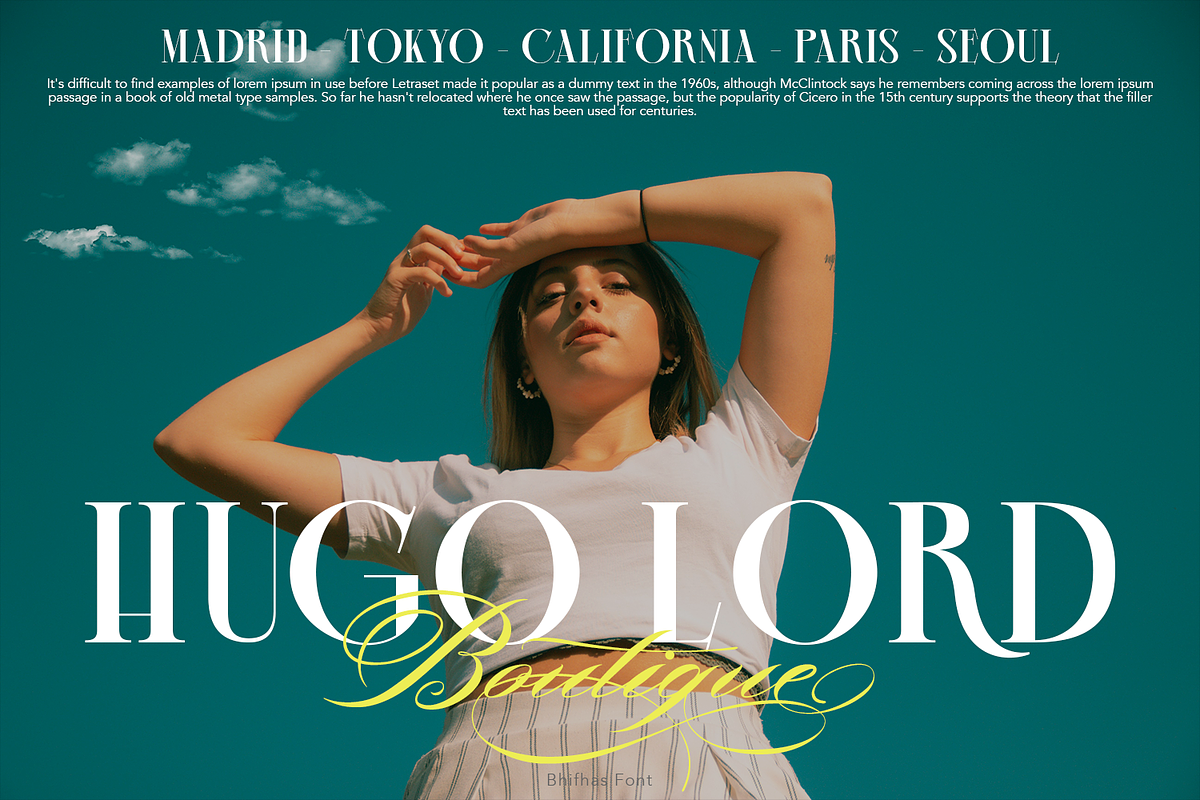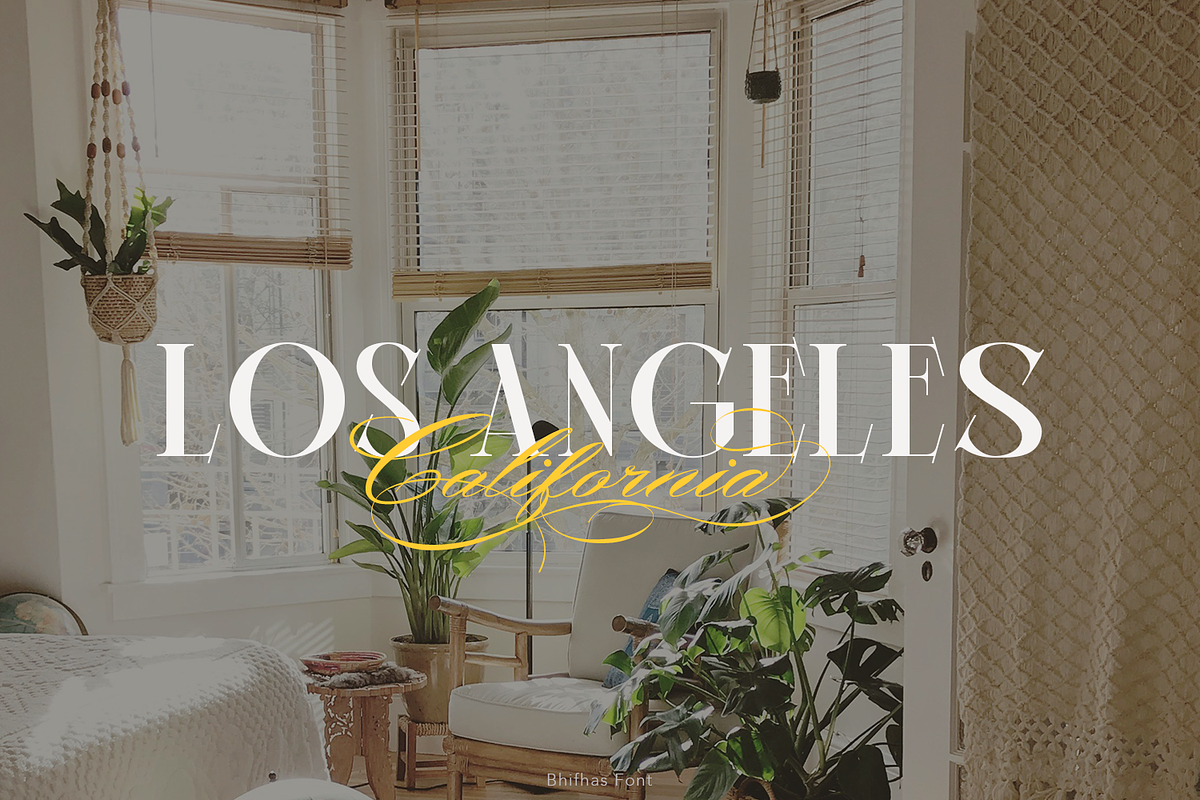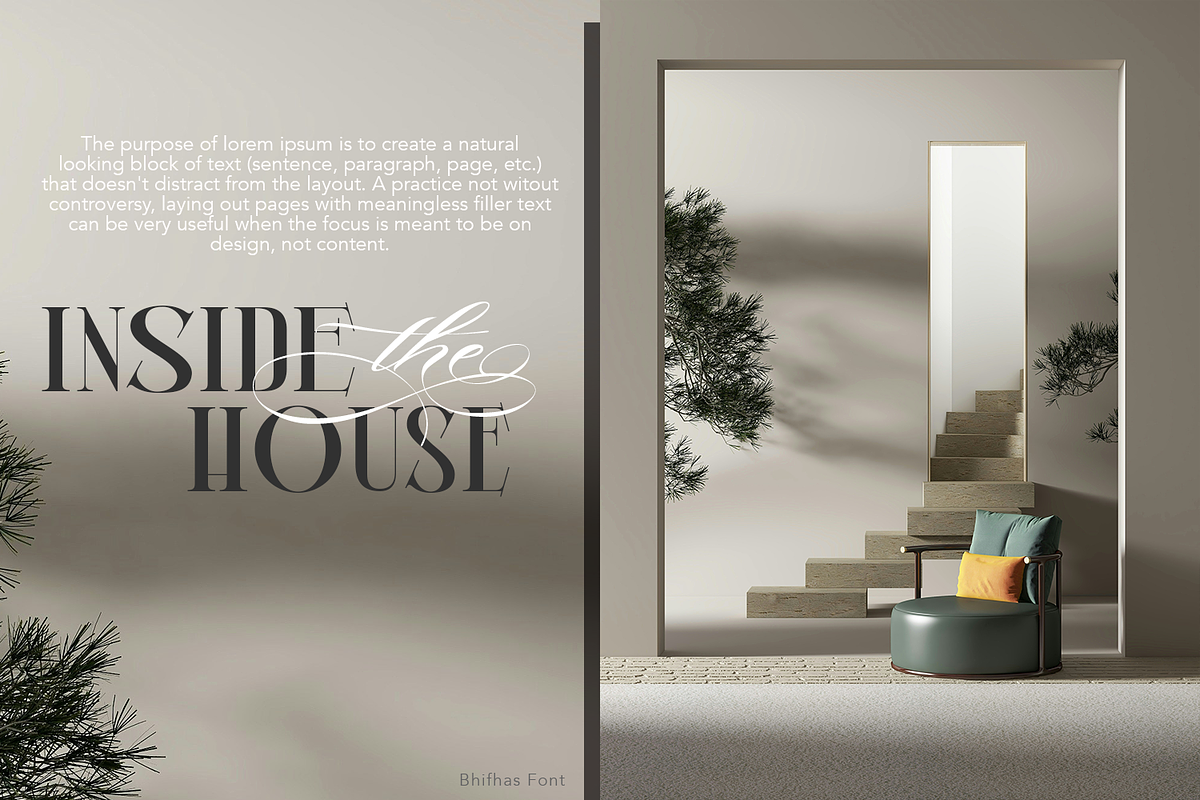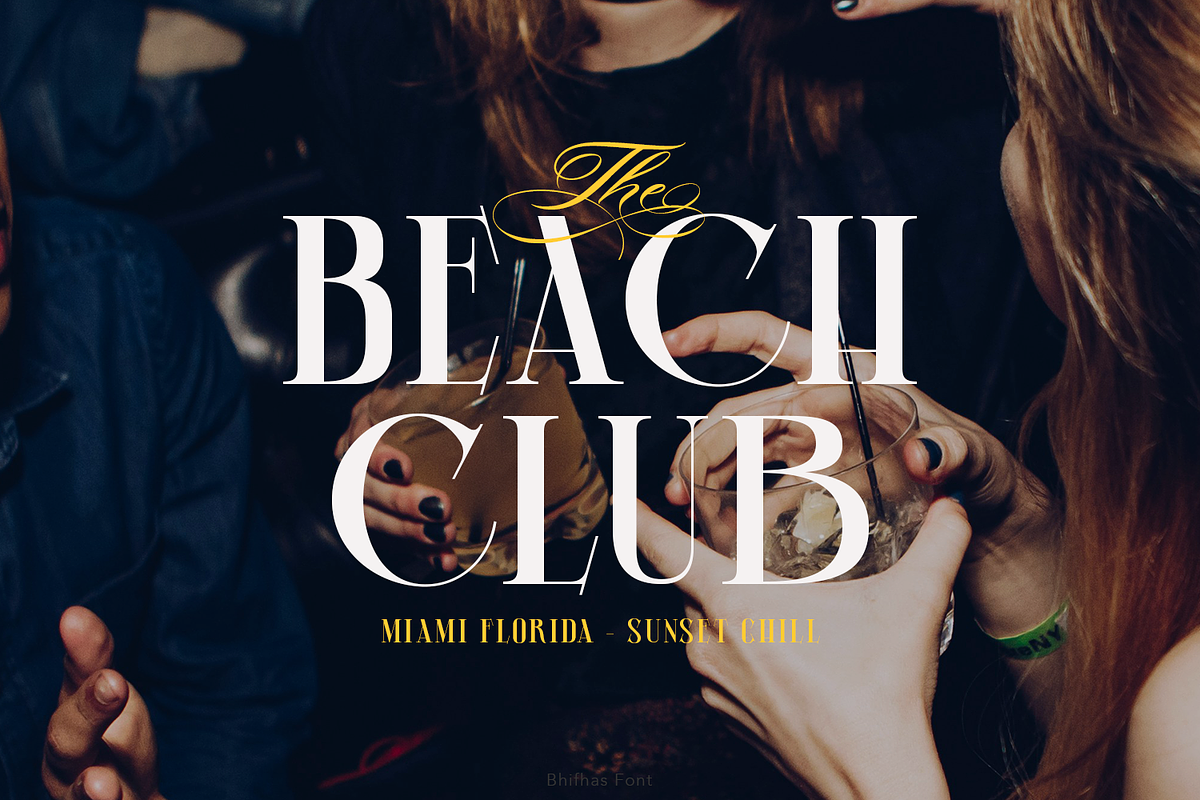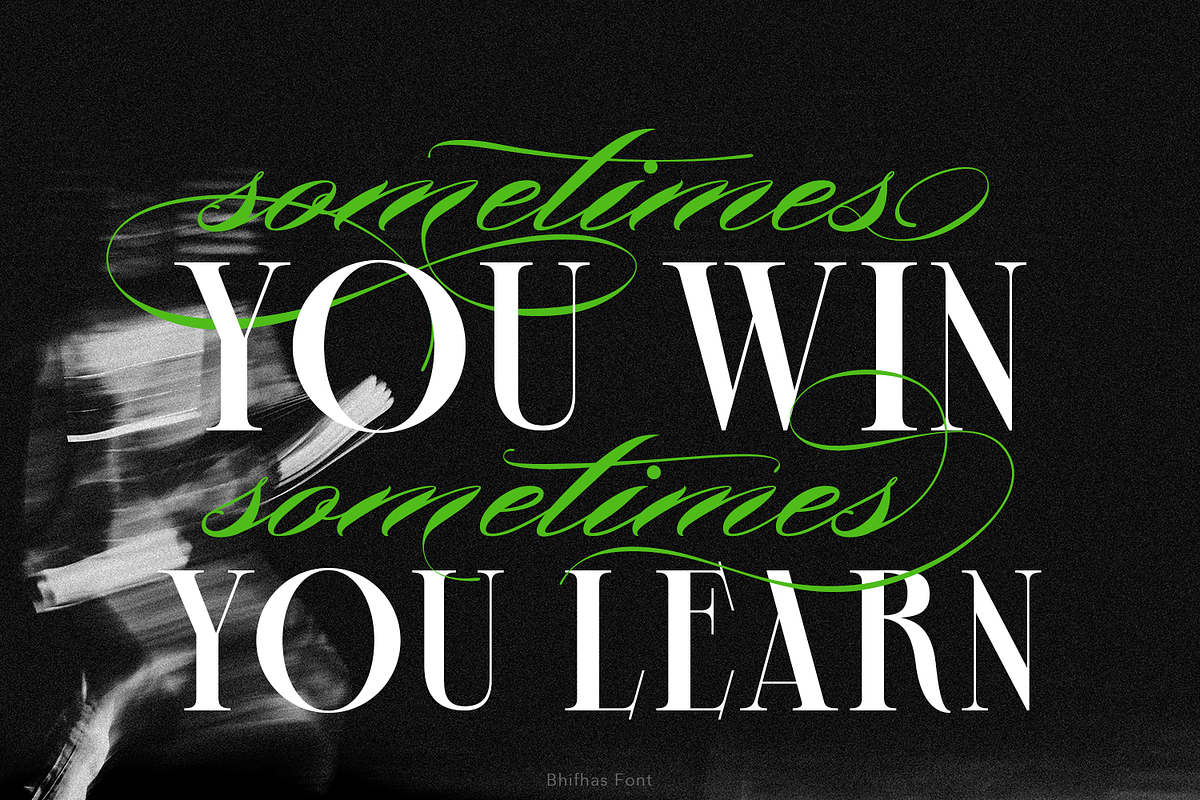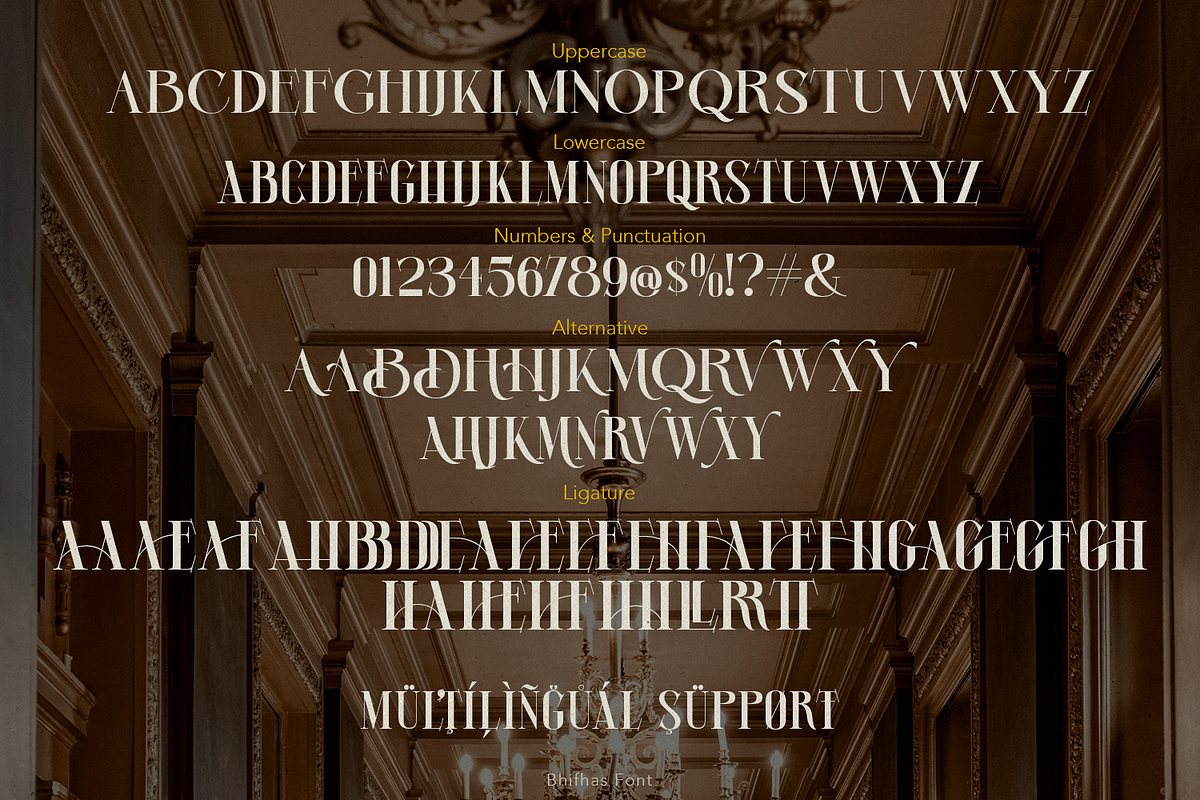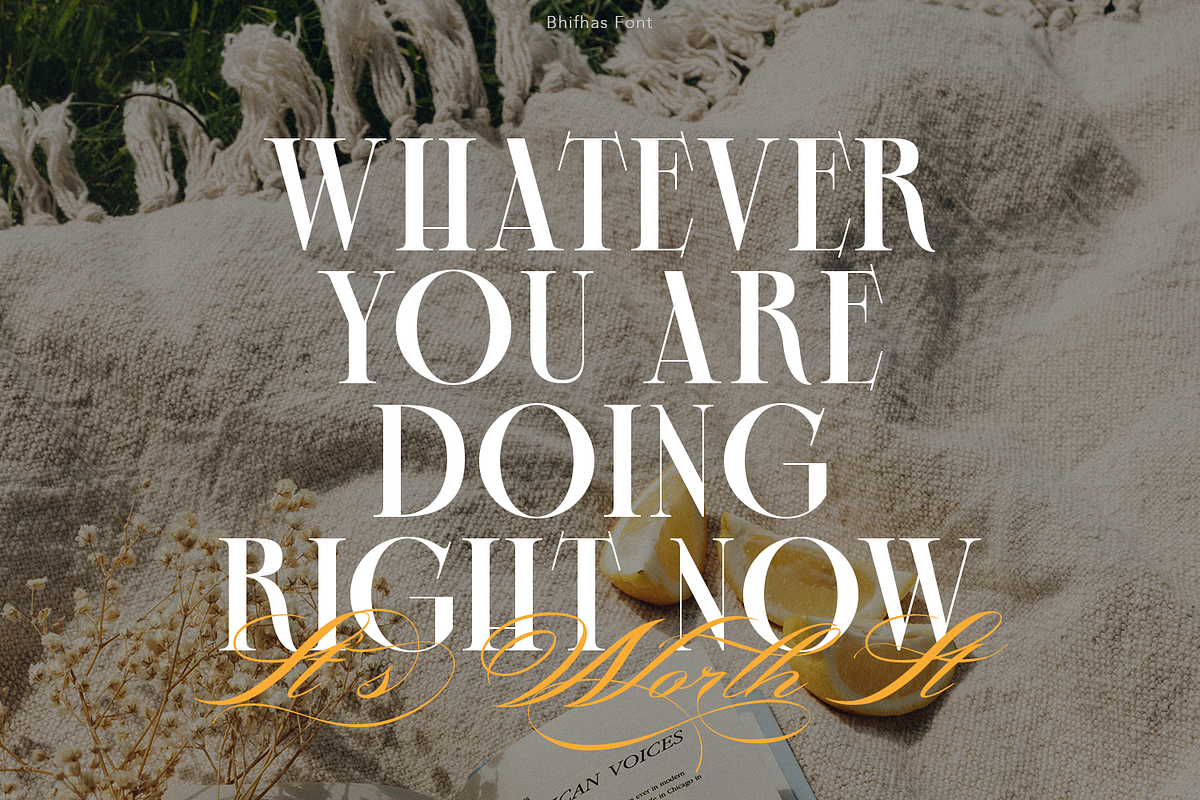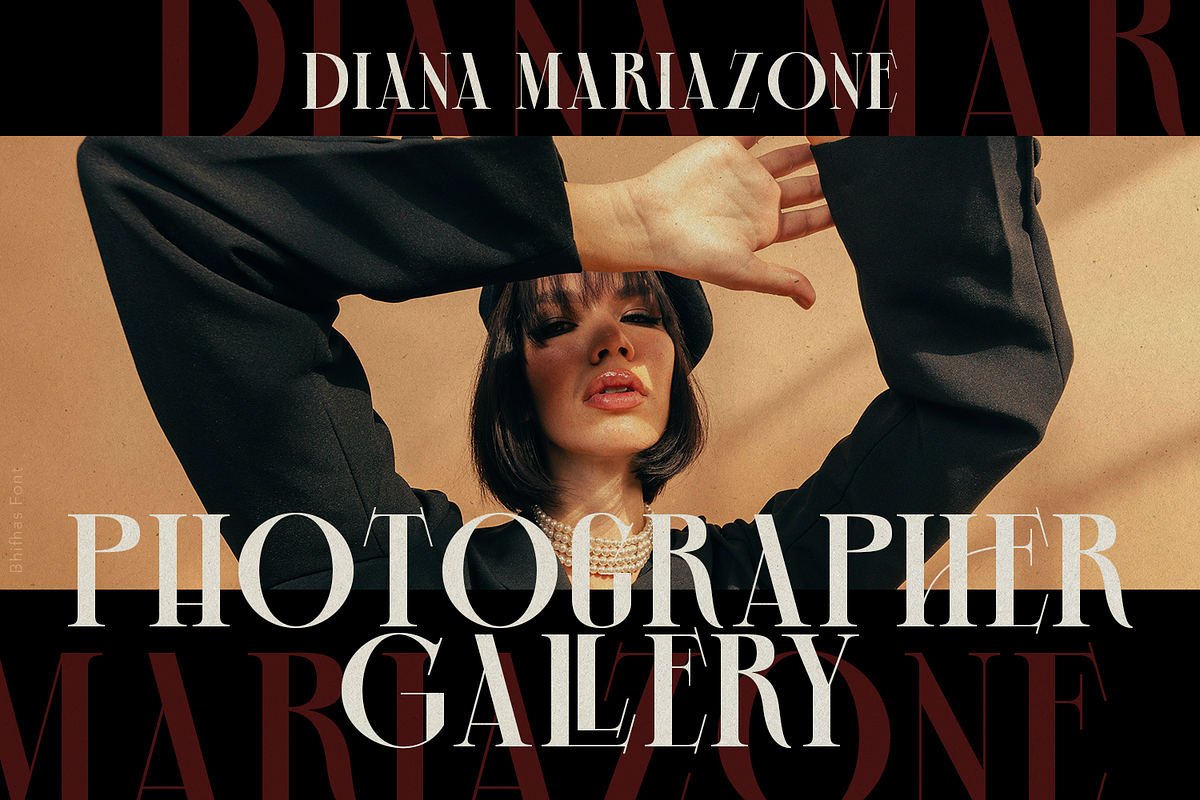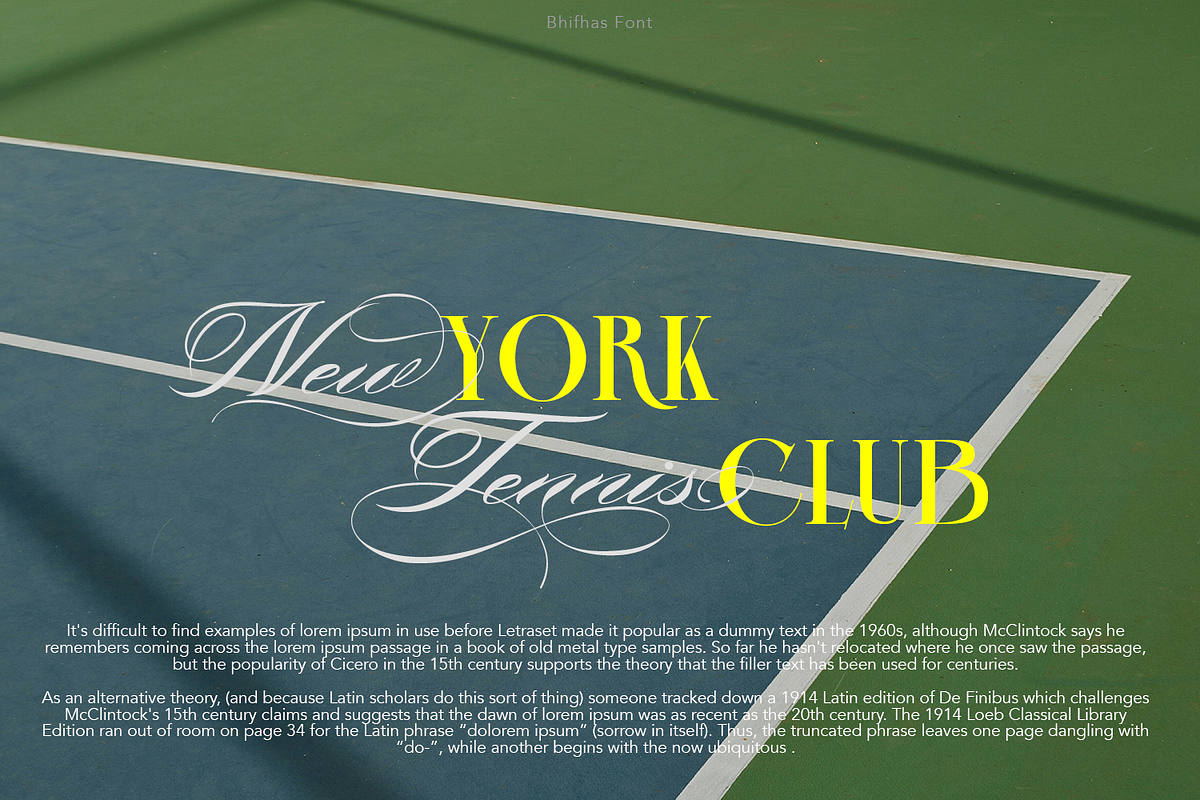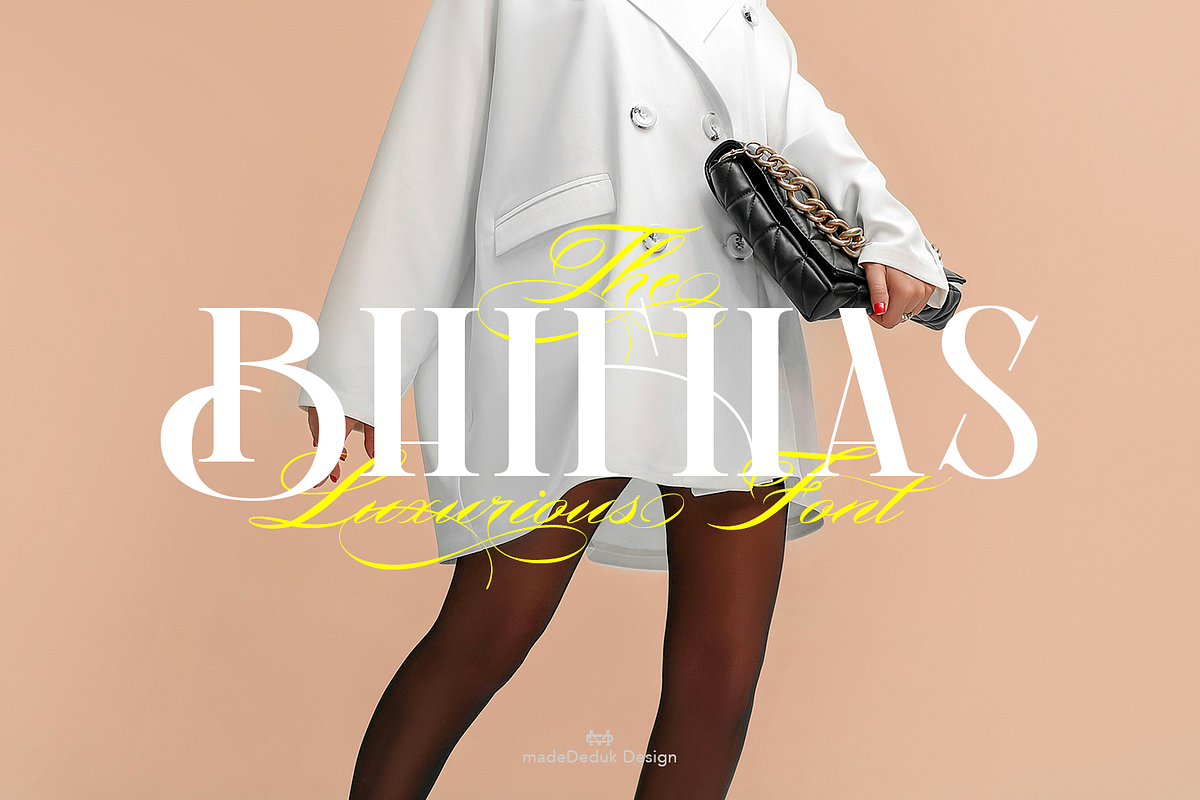
Bhifhas Serif Display
Bhifhas is a serif display, come with single weight and all caps, legible and expressive shapes. A lot of stylish alternates characters and ligature will makes this font suitable for your any project design.
- International Glyphs